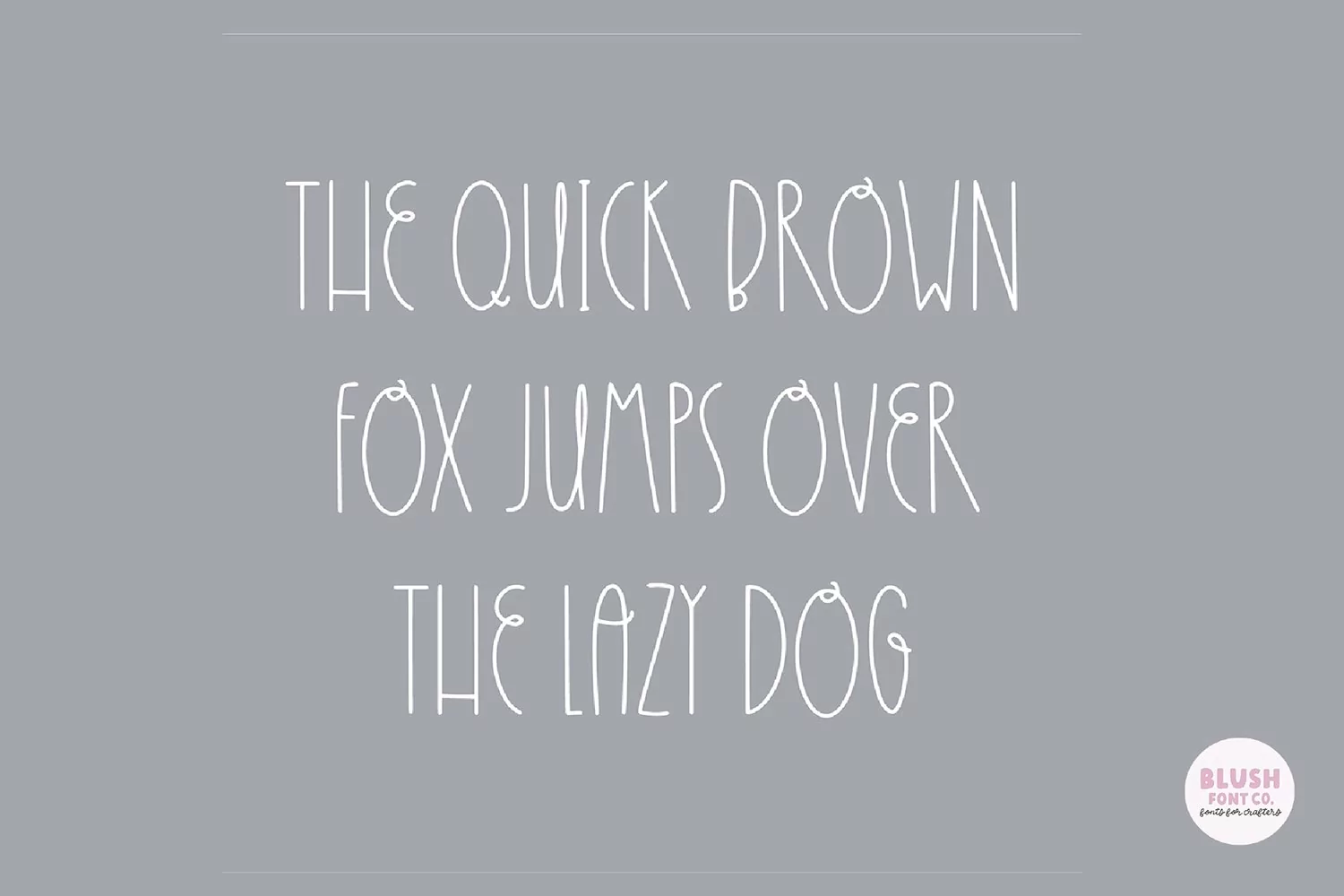
"Cinnamon Breakfast" Stylish Farmhouse font. Perfect for signs! This is an all-caps font.
Cinnamon Breakfast is a tall and skinny decorative font that will compliment any script font. It was made with rustic farmhouse signs and the cottagecore aesthetic in mind. Check out our other farmhouse style fonts that pair perfectly with this one!